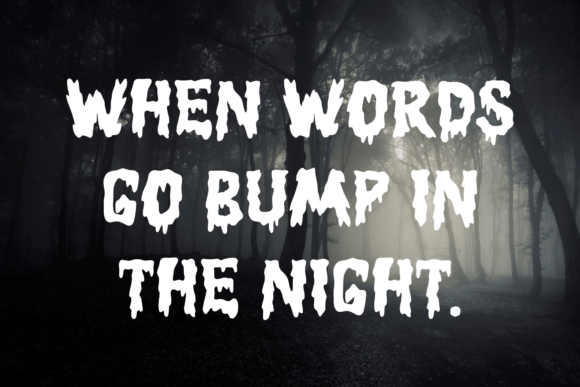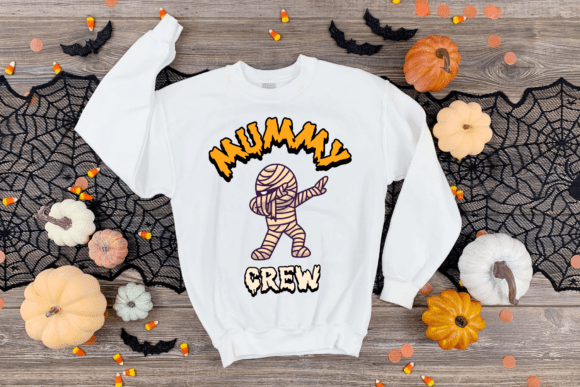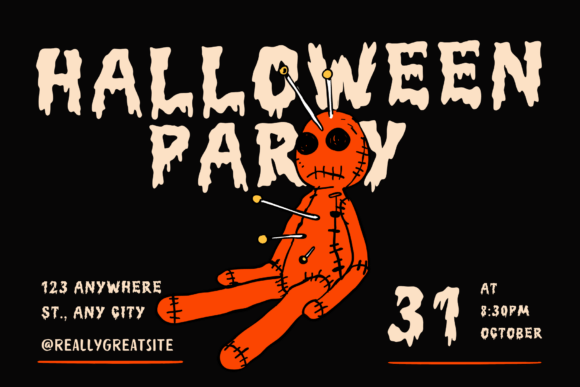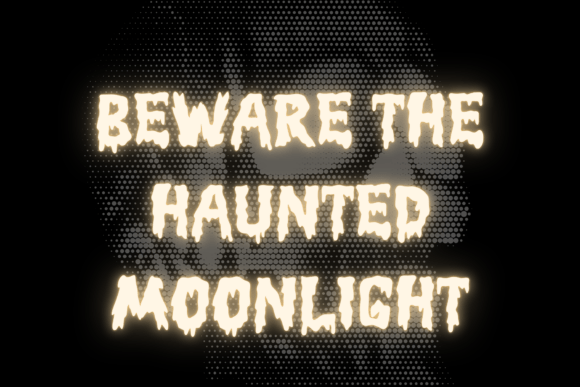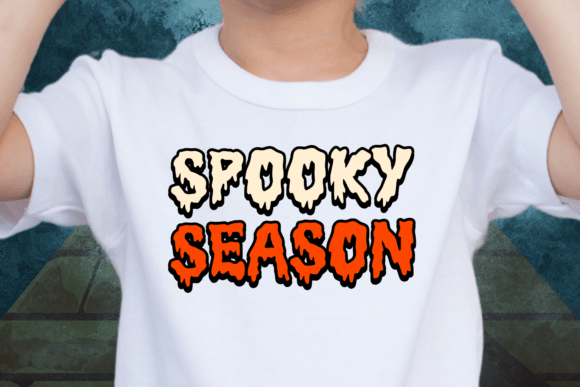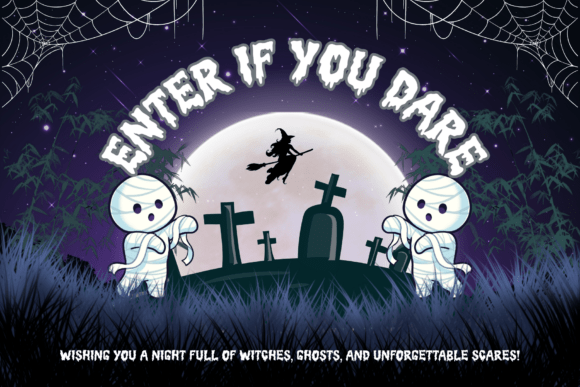
Introduction to Haunted Palace Font
As a designer, have you ever found yourself stuck on a creative project, struggling to convey the essence of a dark and foreboding atmosphere? You know the feeling – the cursor blinks endlessly, and the blank page stares back at you, taunting you to unleash your creativity. For those moments when you need a design resource that can elevate your Halloween-themed project to new heights, look no further than the Haunted Palace Font.
This chilling typeface is a game-changer for designers seeking to create high-quality, spine-tingling visuals that capture the viewer’s attention. With its jagged contours and divergent forms, the Haunted Palace Font seamlessly intertwines the sinister with the bewitching, setting the perfect tone for any creative project.
Key Features of Haunted Palace Font
- Unique Gothic-inspired design, perfect for a creative project requiring a mysterious and eerie atmosphere.
- High-quality font with transparent background, allowing for seamless integration into various design elements.
- Perfect for use in various creative projects, including horror-themed designs, dark fantasy art, and more.
- Characteristics include bold lines, intricate details, and a sense of foreboding, making it an ideal choice for designers seeking a dramatic effect.
Honest Review: Haunted Palace Font
I recently had the chance to work with the Haunted Palace Font, and I must say it’s a unique addition to any design project. The font’s high quality is immediately apparent, making it a valuable design resource for creatives.
One of the standout features of this font is its transparent background, which makes it incredibly versatile. I’ve used it for a variety of creative projects, from spooky-themed posters to minimalist branding designs. The font’s eerie, gothic aesthetic is perfect for adding a touch of mystery to any design.
Here are some things that work well with the Haunted Palace Font:
- ✨ Unique and eerie aesthetic that’s perfect for creative projects
- ✨ High-quality design that’s perfect for professional use
- ✨ Transparent background makes it easy to customize and use in a variety of designs
One limitation of the Haunted Palace Font is that it may not be suitable for all types of designs. For example, if you’re working on a bright and cheerful project, this font may not be the best fit. Additionally, some users may find the font’s gothic aesthetic too intense for certain designs.
How to Use Haunted Palace Font
The Haunted Palace Font is a high-quality, free design resource perfect for creative projects. It features a transparent background, making it easy to integrate into your design.
Tips for Getting the Most Out of Haunted Palace Font
To get the most out of the Haunted Palace Font, experiment with different font sizes, colors, and styles. You can also combine it with other design elements to create a unique look.
The Haunted Palace Font is perfect for horror-themed designs, spooky invitations, and creative projects that require a touch of eeriness. You can also use it for titles, headings, and other text elements that need a bold, attention-grabbing look.